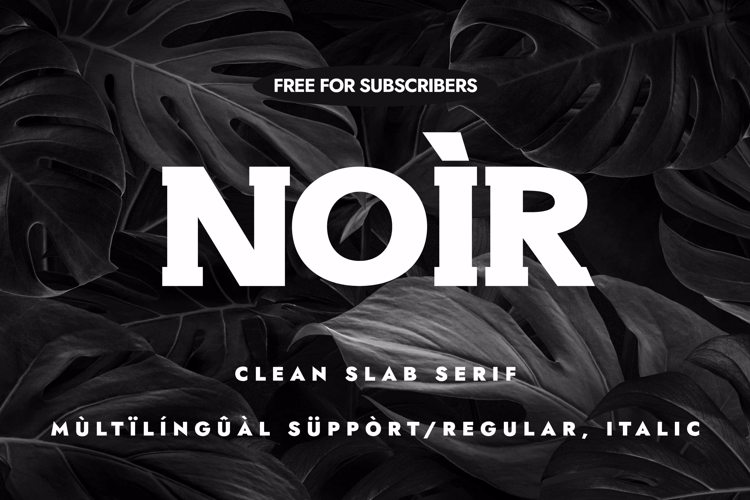
Noir Font
🎨 Font Name: Noir by Minimalist Art Studio
🎨 Font Description: Noir is a clean slab serif with dramatic elegance and multilingual support—perfect for cinematic branding, editorial statements, and luxury packaging.
✔ Complete Latin set + multilingual diacritics
✔ Alternates, stylistic sets & ligatures
✔ Numbers, small caps, and extended punctuation
✔ Bonus italics and family styles